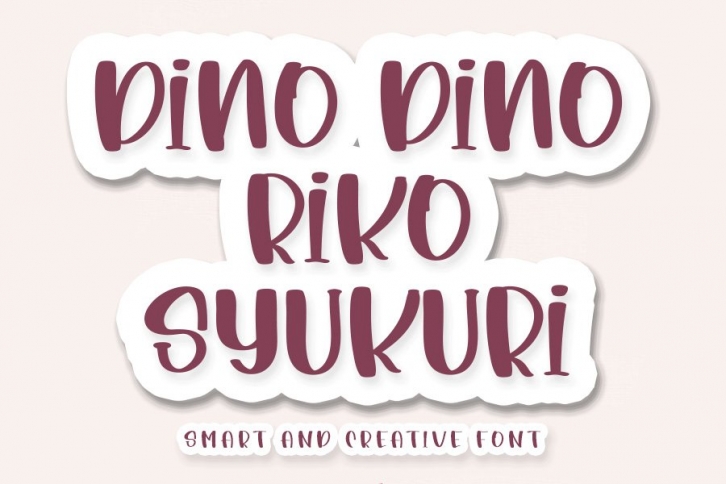
Dino Dino Riko Syukuri is a gorgeous font that was realeased on June 14, 2021. The font can be used in many style contexts and design environments. Perfect for invitations, magazines, websites, logos, and more! It was designed by InermediaSTUDIO and the file size is 1.97 MB. Thanks for checking out this font!